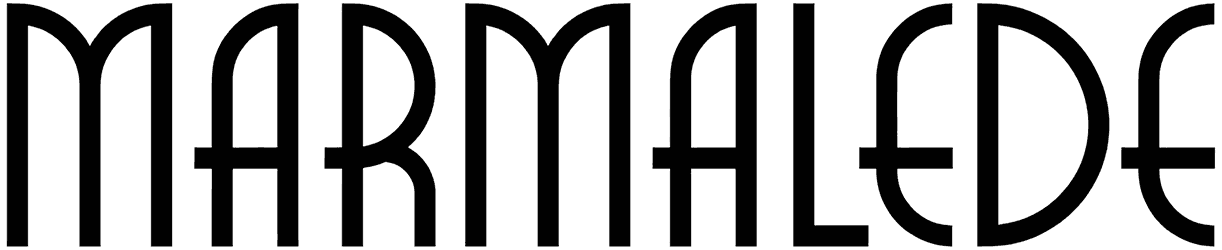
Marmalede Font
Marmalede is an Art Deco font that has the real potential to turn all of your graphic content, such as magazines, flyers, billboards, invitations, and book covers, into a lovely masterpiece. This geometric font can add a minimalistic touch to your editorial projects and share a sense of dynamic, vintage, jauntiness, or vivacity with the audience.